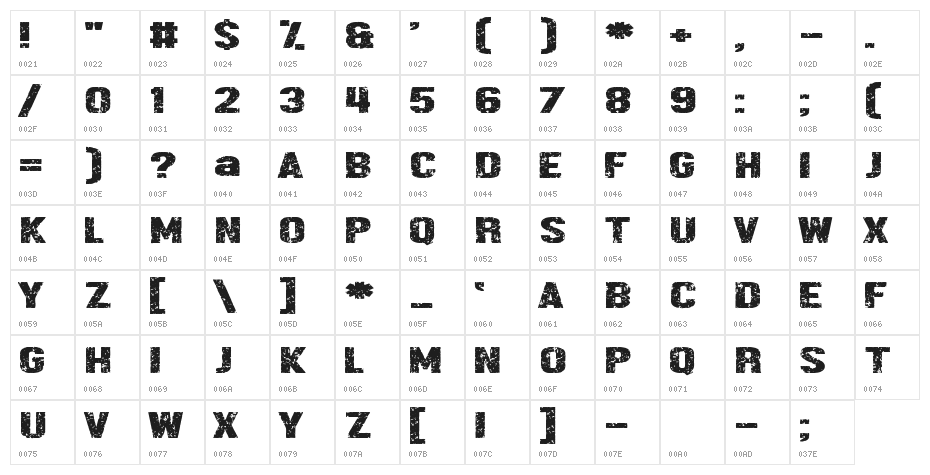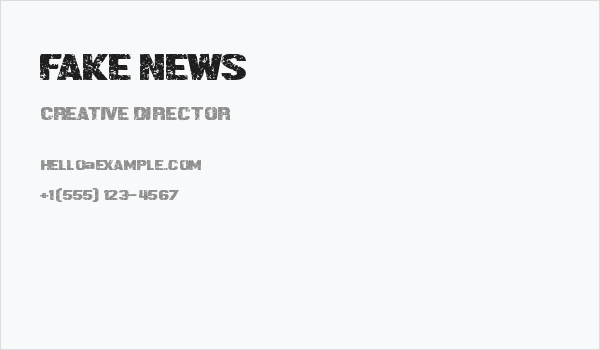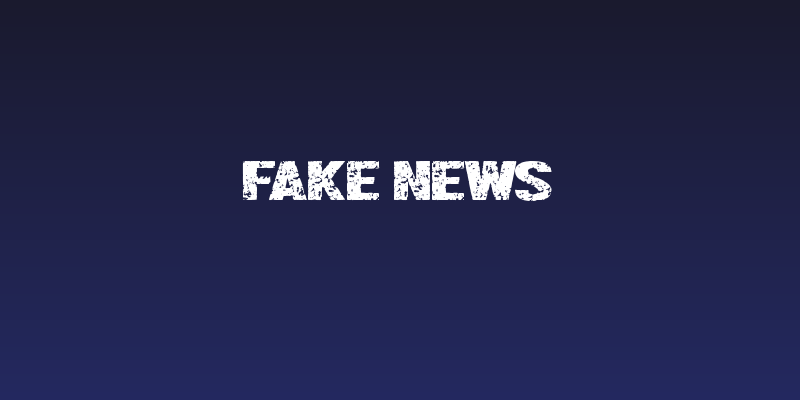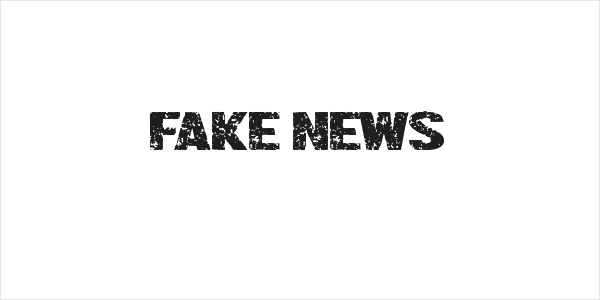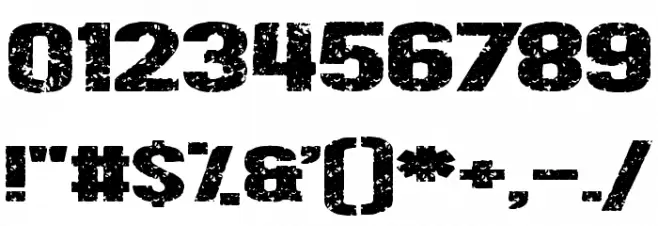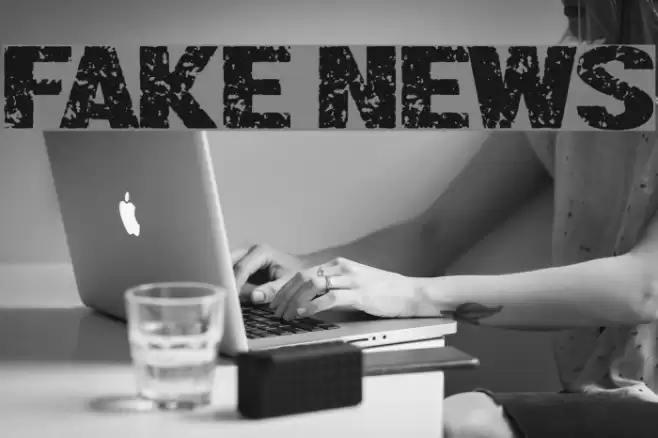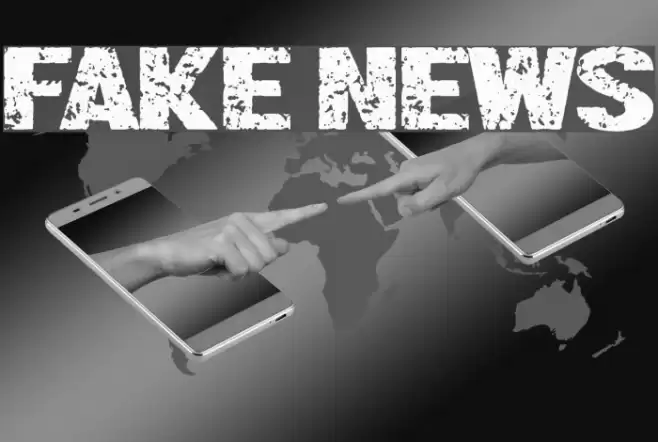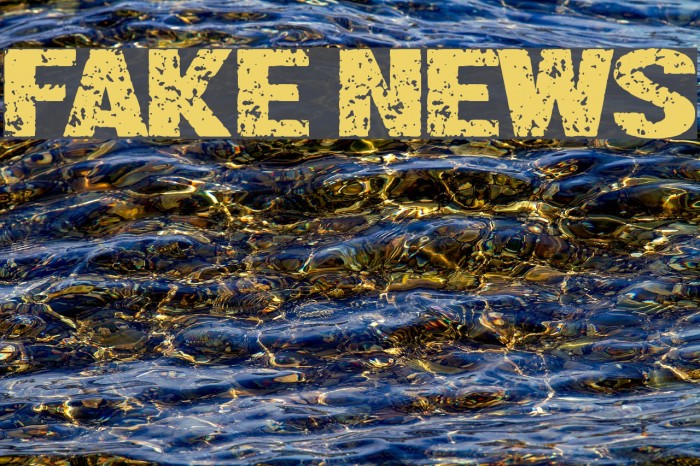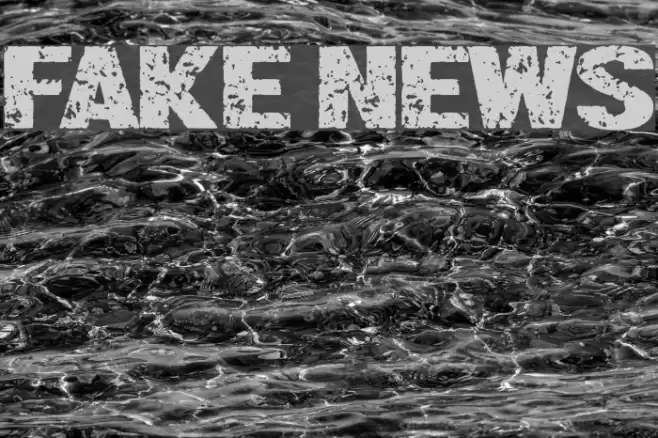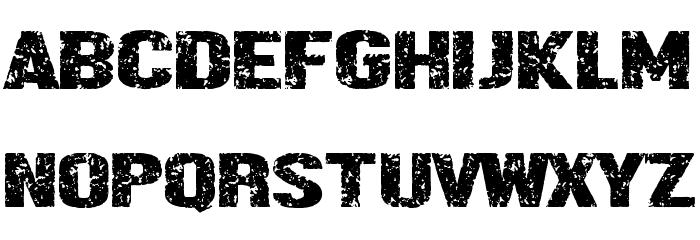
Fake News Font
✎ Distorted Eroded
| Estilo geral | Urban, Gritty, Industrial |
| Projetos propostos | Ideal for posters, album covers, branding for edgy products, or any project needing a rugged look. |